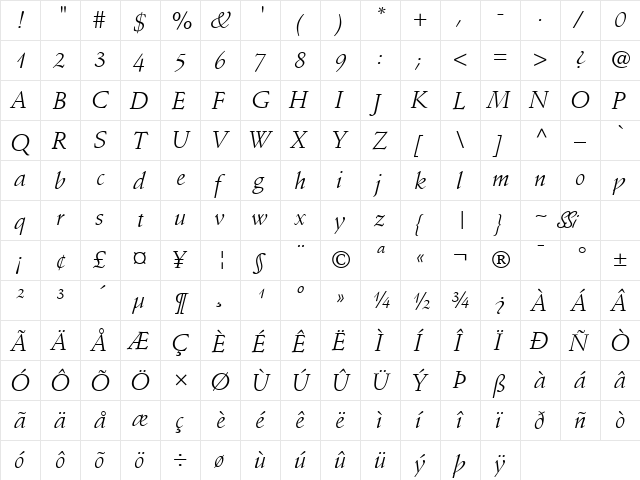
Deutch SSi Italic
Design Context for Deutch SSi Typeface
Deutch SSi offers clean, dependable letterforms without strong stylistic allegiance, making it a practical choice for designers who need flexibility. Its italic angle brings a sense of urgency and motion to the letterforms.
Pro Tip: Use Deutch SSi for emphasis, pull quotes, and subheadings where its slanted energy can add rhythm to the layout.